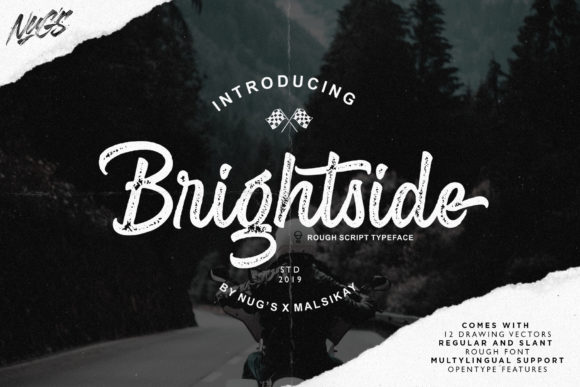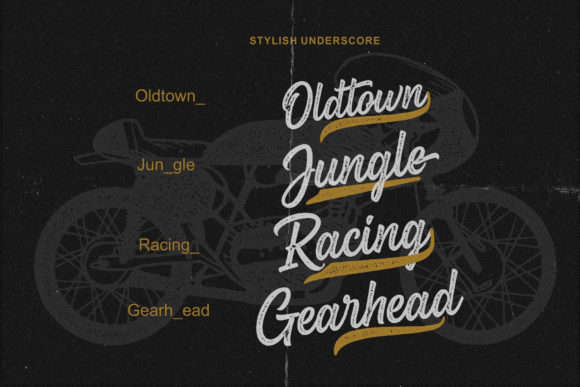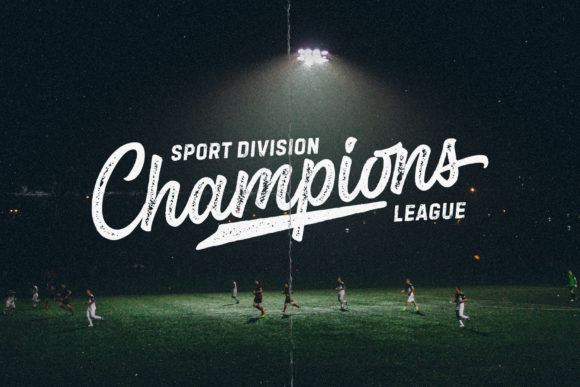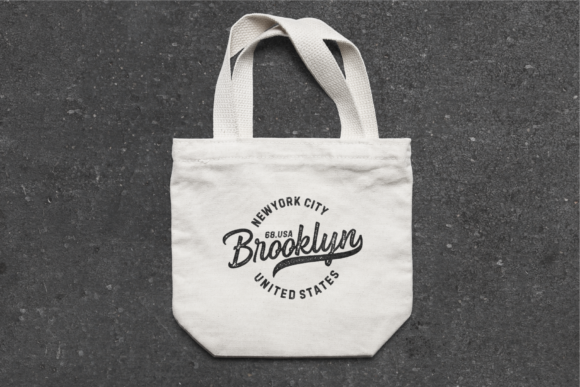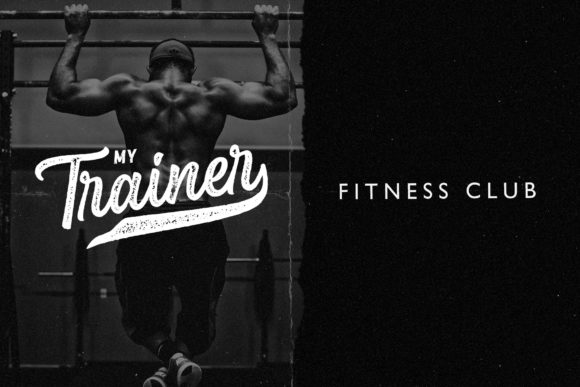
HomeScript FontsBrightside Font Script Fonts Brightside Font FacebookXPinterestWhatsApp Brightside Font Poster 2 Brightside Font Poster 3 Brightside Font Poster 4 Brightside Font Poster 5 Brightside Font Poster 6 Brightside Font Poster 7 Brightside Font Poster 8 About Brightside Font Brightside is a beautiful script font with a vintage style. Use this unique typeface to make any design bolder. DOWNLOAD NOW People also explored Relante Symphony Calligraphy Font Sheraton Font Telefante Family Font Sunhine Tomorrow Font Christmas Sweet Font Magic Culture Font Butter Milk Font Madam Ghea Font 322 0 TagsBrightside Font Previous articleRossy Amitter FontNext articleJuly It Font LEAVE A REPLY Cancel reply Comment: Please enter your comment! Name:* Please enter your name here Email:* You have entered an incorrect email address! Please enter your email address here Website: Save my name, email, and website in this browser for the next time I comment. Personal Use Free Ontel Personal Use Free Read more about this font Monogram Calligraphy Personal Use Free Read more about this font Mellgatha Personal Use Free Read more about this font Sarwendah Personal Use Free Read more about this font BLOG 5 Fonts That Will Dominate Design Trends in 2026 5 Fonts for 2026 That Will Dominate Design Trends Typography plays a critical role in visual communication, and as we look ahead to 2026, it’s... Where to Buy American Fonts Online in 2024 How to Cut Any Font on Cricut: Convert a Font to SVG (Free) The 10 Best Handwriting Fonts to Add Personality to Your Designs